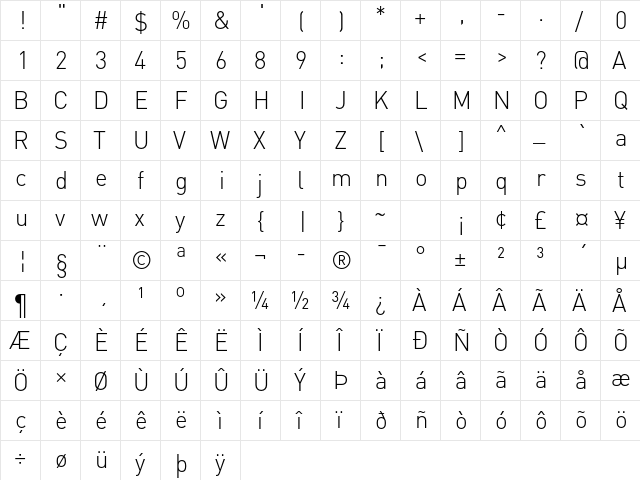
DINPro-Light Regular
| Foundry | FSI Fonts und Software GmbH |
| Designer | Albert-Jan Pool |
Design Context for DINPro-Light Typeface
DINPro-Light takes a measured approach to typography — its balanced proportions and neutral character make it a reliable workhorse for both digital and print work. Its slender proportions lend an understated elegance to any composition.
Pro Tip: Pair DINPro-Light with a font of contrasting weight or personality to build a more expressive typographic hierarchy.